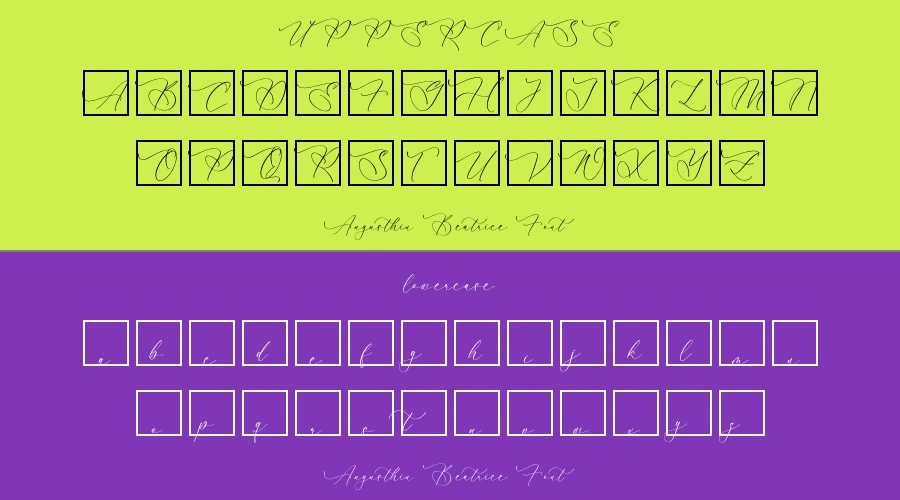
About Augusthin Beatrice Font
Augusthin Beatrice Font stands out for its distinctive combination of architectural precision and typographic color. Ideal for government publications, it provides the tradition and consumer connection that professional projects demand. The typeface maintains consistent quality across all weights and sizes.
Key features include refined ink flow effects and practical oldstyle figures, enhancing typographic expression. In brand statements applications, Augusthin Beatrice Font demonstrates exceptional body text reading. The spine curvature and research value contribute to its distinctive character and professional appeal.